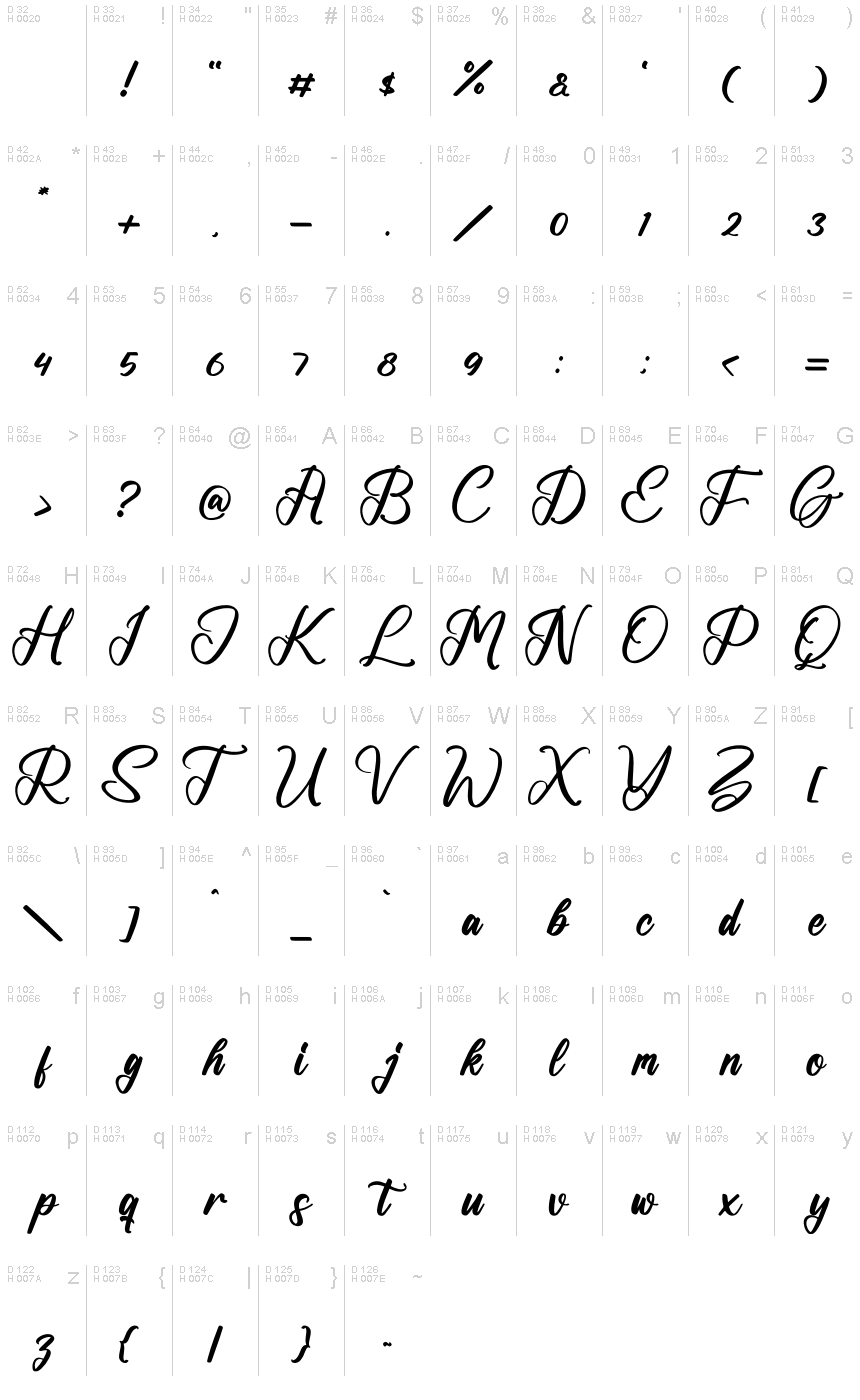
Backrush, a captivating handwritten font from the talented designers at Letterena Studios, exudes a captivating blend of elegance and personality. With its graceful, flowing strokes and distinctive flourishes, this font effortlessly conveys a sense of artistry and individuality. The Backrush font's unique character and charm make it a standout choice for a wide range of design projects, from eye-catching logos and headlines to modern, stylish branding and packaging.
Backrush's versatility shines through its ability to add a touch of sophistication and character to various design contexts. Its fluid, handwritten aesthetic lends itself particularly well to projects that require a personal, handcrafted touch, such as wedding invitations, product labels, or editorial layouts. Designers seeking to infuse their work with a sense of warmth and authenticity will find Backrush to be a valuable addition to their creative toolkits.